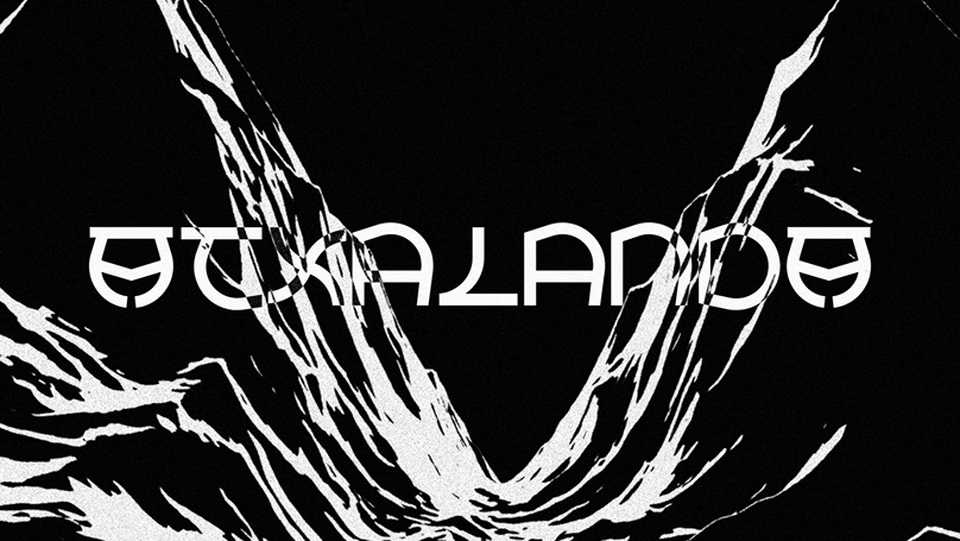
Download Atxalanda typeface, a bold geometric variable font with unique character. Atxalanda is best suitable for posters, headlines, album artworks and other display use.